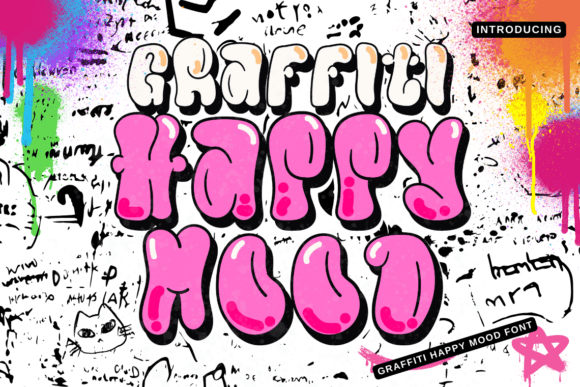
Unlock the Power of Expression with Graffiti Happy Mood Font
You’ve stared at a blank canvas, wondering where to begin. The cursor blinks, and your imagination starts to run wild. You crave a font that captures the essence of creativity, something that speaks to the rebellious spirit within. Enter Graffiti Happy Mood Font, a vibrant, handwritten typeface that embodies the unbridled energy of graffiti, street art, and bold graphics.
This versatile font is more than just a tool – it’s a key to unlocking your inner designer. With its playful, expressive style, Graffiti Happy Mood Font is perfect for adding a personal touch to any project, from holiday-themed crafts to DIY birthday invitations. Whether you’re a seasoned pro or a design newbie, this font is an invaluable asset in your creative arsenal.
Graffiti Happy Mood Font Key Features
- Unique Characteristics: Includes a range of expressive, hand-drawn graffiti-inspired characters and symbols
- Style Variations: Includes bold, regular, and italic styles, with customizable color options
Graffiti Happy Mood Font Review
Overall, I think the Graffiti Happy Mood Font is a fun and playful addition to any design project. ✨ It’s perfect for creating a lively and energetic vibe, and the varied letterforms and textures add a lot of visual interest. The font’s flexibility makes it suitable for a wide range of applications, from posters and flyers to social media graphics and web headers.
- Works well for bold, eye-catching headlines
- Perfect for creating a fun, youthful atmosphere
- Great for adding visual interest to text-heavy designs
However, there are some limitations to consider. ⚠️ The font can be a bit overwhelming if used in large blocks of text, and the irregular letterforms can make it difficult to read at small sizes. Additionally, the font’s bold, graphic style may not be suitable for more formal or professional projects.
Overall, I think the Graffiti Happy Mood Font is a great choice for designers looking to add a bit of whimsy and personality to their work. While it may not be the best choice for every project, it’s definitely worth considering for designs that need a fun, energetic vibe.
The Graffiti Happy Mood Font is ideal for:
- Social media graphics and posts.
- Event promotions and invitations.
- Product branding and packaging.
- Advertising and marketing materials.
Tips for Getting the Most Out of the Graffiti Happy Mood Font